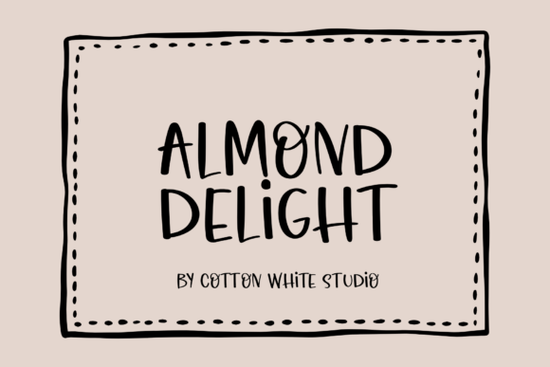
Almond Delight Font is a versatile and expressive typeface that brings a warm, handcrafted feel to any design project. Whether you're working on personal crafts or professional print-on-demand items, this font adds a unique touch that stands out. Its playful style makes it ideal for anything from children's products to creative stationery. If you're looking for a font that feels authentic and full of character, Almond Delight could be just what you need.
This font is especially useful for designers who want to add a friendly and approachable vibe to their work. The handwritten style gives each letter a distinct personality, making it perfect for projects that require a more personal or artistic flair. From t-shirts to signs, Almond Delight can transform simple ideas into something visually engaging and memorable.
What Makes Almond Delight Stand Out?
One of the key features of Almond Delight is its handmade look. Unlike many digital fonts that can feel stiff or repetitive, this one has a natural, organic feel. The subtle variations in each letter make it appear as though it was written by hand, adding a level of authenticity that’s hard to replicate. This makes it a great choice for anyone looking to create designs that feel more personal and less mass-produced.
The font also includes a range of whimsical details that enhance its charm. These small touches help give each design a sense of fun and creativity, making it suitable for a wide variety of applications. Whether you're designing for kids, creating marketing materials, or working on DIY projects, Almond Delight offers a fresh and appealing alternative to more traditional typefaces.
Best Uses for Almond Delight
Almond Delight is incredibly flexible and can be used in a number of different ways. For example, it works well for custom merchandise like mugs, T-shirts, and stickers. It also fits perfectly with educational materials, such as classroom resources or activity sheets. If you're into crafting or using Cricut machines, this font can help bring your creative visions to life with ease.
Another great use for Almond Delight is in invitation design. Its friendly and expressive style makes it an excellent choice for wedding invitations, birthday cards, or event flyers. It adds a touch of warmth and personality that can make a big difference in how your message is received.
How to Get the Most Out of Almond Delight
To make the most of Almond Delight, consider experimenting with different sizes and layouts. Larger text can create a bold statement, while smaller sizes work well for captions or labels. Pairing it with other fonts can also help balance the design and highlight its unique qualities.
When using Almond Delight, keep in mind that it works best in designs that emphasize creativity and individuality. Avoid using it in overly formal contexts where a more structured typeface might be more appropriate. Instead, focus on projects that benefit from a playful and expressive visual style.
Before finalizing your design, always test the font in different sizes and backgrounds to ensure it looks good in all contexts. This will help you avoid any unexpected issues and ensure your work looks polished and professional.
Whether you're a designer, crafter, or small business owner, Almond Delight offers a fresh and creative way to express your ideas. With its friendly style and versatile use, it’s a valuable addition to any design toolkit.
- Experiment with different color combinations to see what works best.
- Pair it with complementary fonts for a balanced and cohesive look.
- Use it in projects that benefit from a personal and handmade feel.